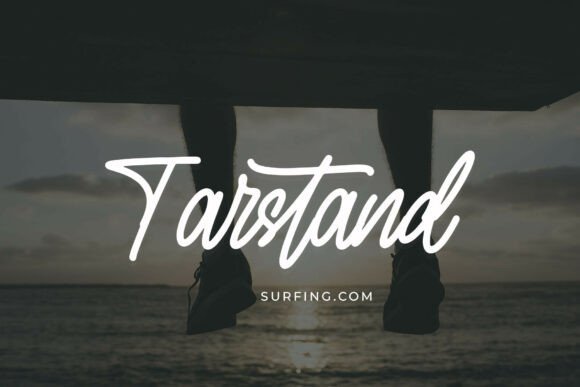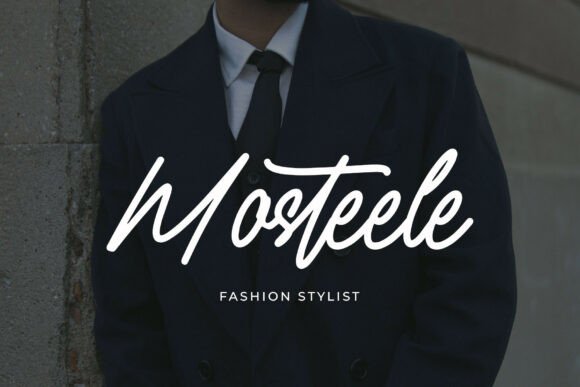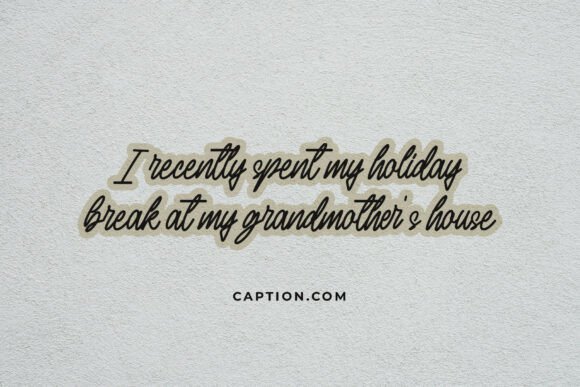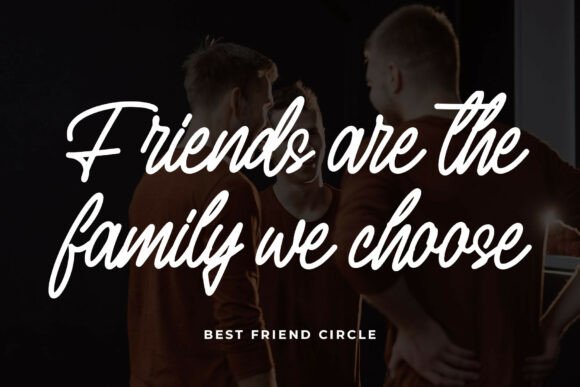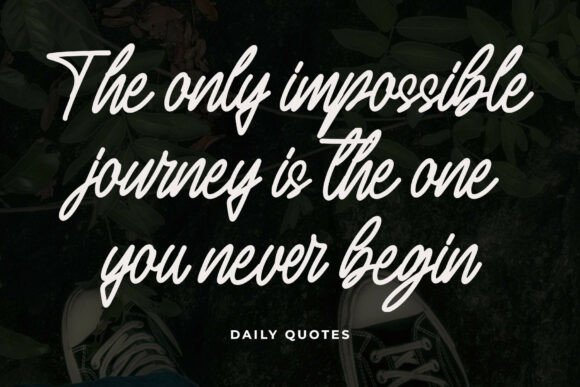
Where Creativity Meets Casual Elegance
Have you ever been on a summer road trip, feeling carefree and inspired by the world around you? As you capture the perfect sunset shot, you can’t help but feel a rush of creative energy. This is the moment when ideas start flowing, and the world becomes a canvas waiting to be painted. It’s in these moments that we crave a font that captures the essence of relaxed elegance and creative spontaneity – a font that embodies the spirit of adventure and freedom.
Enter the Fostera Font, a light and breezy handwritten font that brings a touch of casual charm to your designs. With its fluid strokes and contemporary feel, it’s the perfect companion for branding, travel blogs, social media posts, and lifestyle content. Whether you’re a seasoned designer or a creative enthusiast, the Fostera Font is an invaluable asset that adds a touch of personality to your work.
Fostera Font Key Features
- Font Family: Fostera Font comes in multiple font families, including Fostera Regular, Fostera Italic, Fostera Bold, and Fostera Bold Italic.
- Language Support: Fostera Font supports multiple languages, including Latin-based languages, Cyrillic, and Greek, making it a versatile choice for global projects.
- Unique Characteristics: Fostera Font features a unique blend of modern and traditional elements, with a focus on clean lines, geometric shapes, and a touch of elegance.
Fostera Font Review
As a designer, I’ve had the chance to work with a wide variety of fonts, but Fostera Font is definitely one that stands out. Here’s my honest review.
- Fostera Font is incredibly versatile – it works beautifully in both digital and print applications.
- The font’s clean and modern aesthetic makes it perfect for a wide range of design projects, from logos to websites.
- The font’s OpenType features allow for a high level of customization, making it easy to create unique and creative designs.
- The font’s high legibility makes it perfect for long blocks of text, such as articles or essays.
- One of the main limitations of Fostera Font is its lack of historical or cultural significance – it doesn’t have the same level of emotional resonance as some other fonts.
- The font’s modern aesthetic may not be to everyone’s taste – some people may find it too clean or minimalist.
- The font’s high level of customization can be overwhelming for some designers, especially those who are new to font design.
Overall, I’m really impressed with Fostera Font – it’s a high-quality font that’s perfect for a wide range of design projects. While it may have some limitations, I think it’s definitely worth considering for any designer looking for a clean and modern font.
Tips for Getting the Most Out of Fostera Font
Use Fostera Font for titles, headings, and emphasis to create visual hierarchy in your designs.
Combine Fostera Font with other fonts to create a unique and visually appealing typography.
Use Fostera Font for:
Logo design
Branding materials
Infographics
Brochures and flyers
Alternatives to Fostera Font for Designers
Poppins Font
Poppins Font is a clean and modern sans-serif font that is highly legible and versatile. It is suitable for use in digital and print media, and is particularly effective for headings and body text. Poppins Font is more geometric and has a more neutral feel compared to Fostera Font, which has a more rounded and friendly feel.
Montserrat Font is a geometric sans-serif font that is highly versatile and adaptable. It is suitable for use in a wide range of applications, from digital and print media to branding and advertising. Montserrat Font has a more urban and modern feel compared to Fostera Font, which is more rounded and friendly.